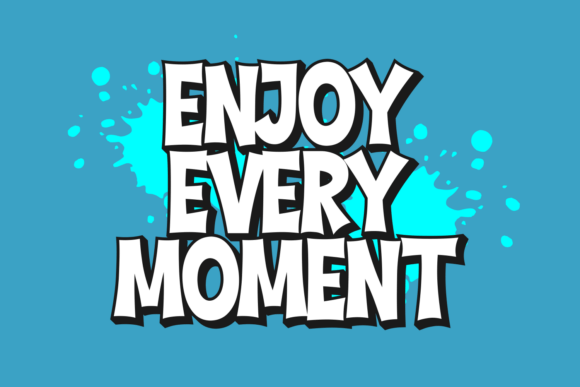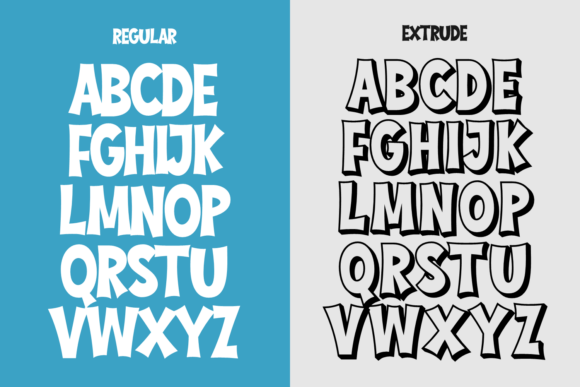
Awaken Design Font
Awaken Design is a bold and energetic comic graffiti font crafted to bring a playful urban vibe to any project. Its chunky letterforms with exaggerated curves and sharp edges mimic the expressive strokes of street art while keeping a polished comic-book appeal. The font exudes fun, creativity, and confidence, making it ideal for posters, branding, children’s content, apparel, games, and designs that demand attention with personality and flair.
This typeface comes in two styles:
Regular – clean, solid graffiti-inspired letters perfect for standalone use.
Extrude – layered with a bold outline and depth effect, designed to create striking dimensional titles.
When combined, the two styles allow layered, impactful text effects reminiscent of spray-painted tags and comic headlines, offering flexibility for playful or edgy design aesthetics.